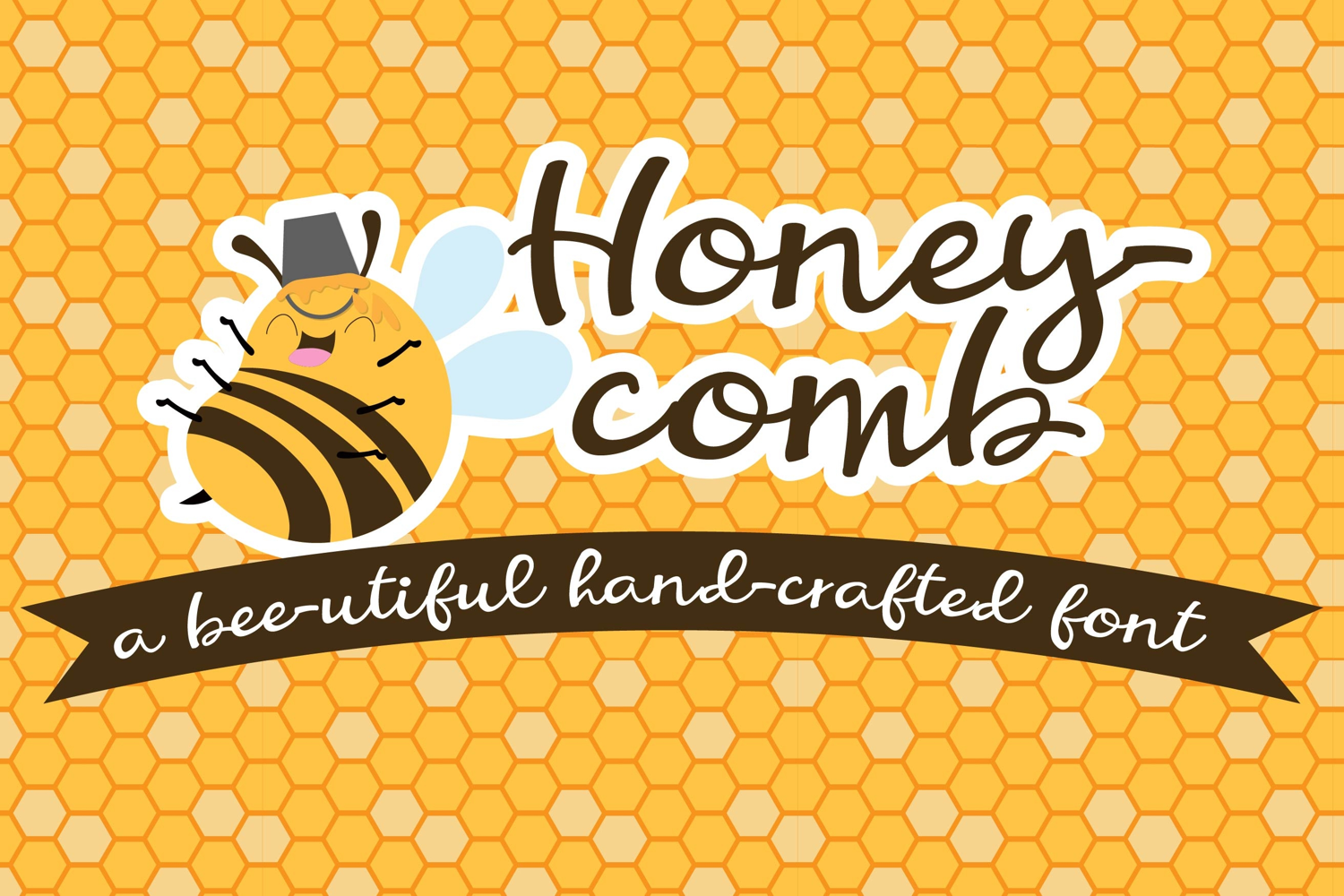
Honeycomb Font Family
This hand-crafted font is a hand-written script with a mix of thick and thin lines.
• The letters are not perfectly uniform in size or shape.
• There may be slight variations in the spacing between letters and words.
• The font may have a "wiggly" or "squiggly" appearance.
• The font may be difficult to read at small sizes.